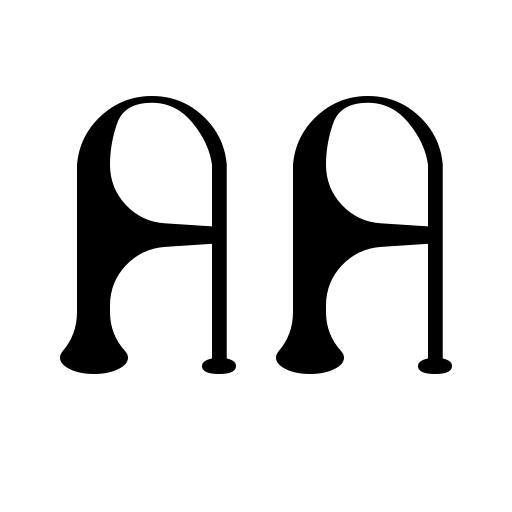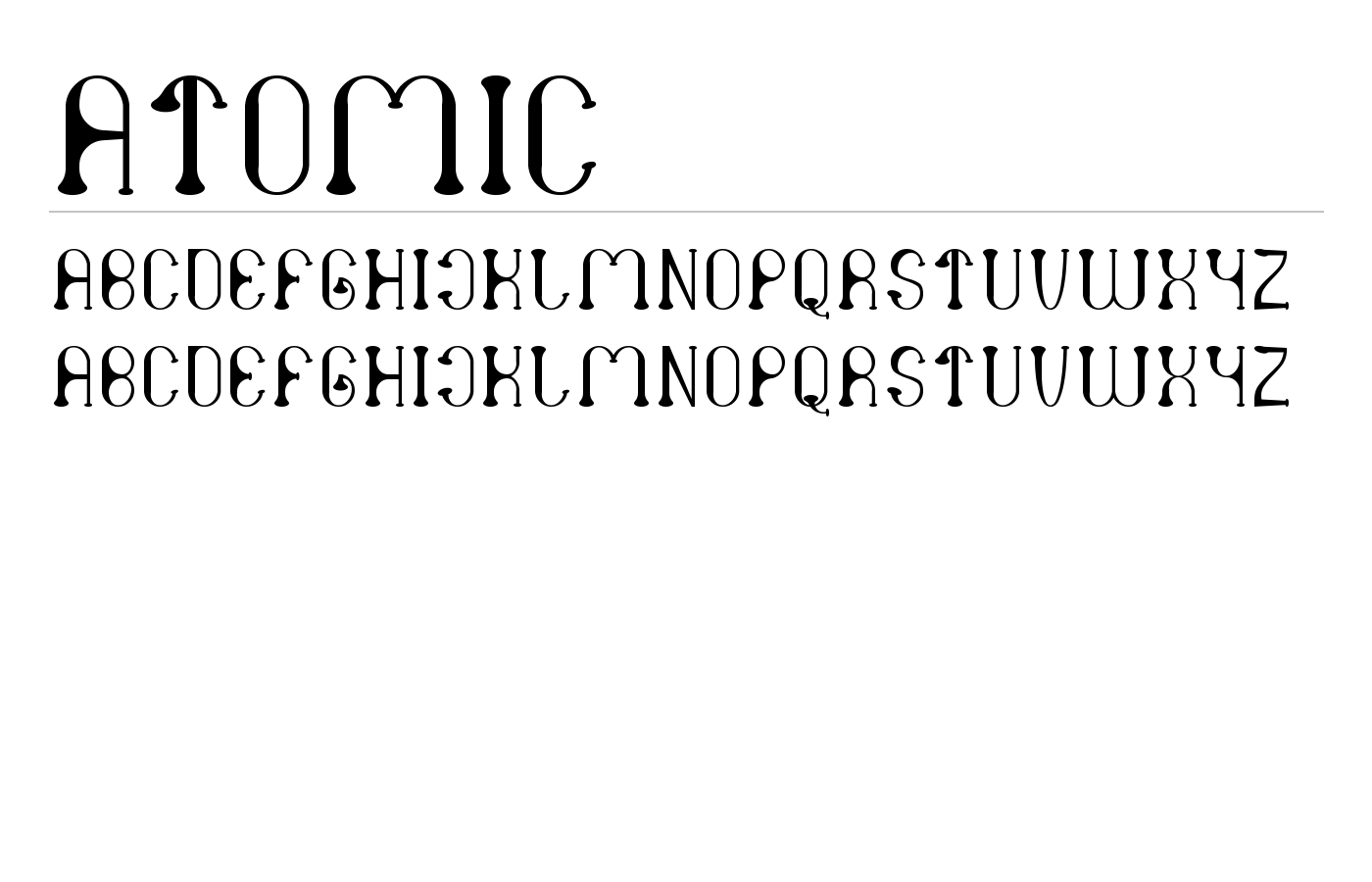
Atomic is a unique serif display font with a tall, narrow structure and high contrast between thick and thin strokes. Its distinctive, decorative serifs and playful, slightly vintage letterforms give it an artistic and retro-futuristic feel, making it perfect for logos, headlines, and creative branding that needs a bold yet elegant statement. This font stands out with its quirky details and sharp contrasts, ideal for projects seeking a stylish, memorable identity.